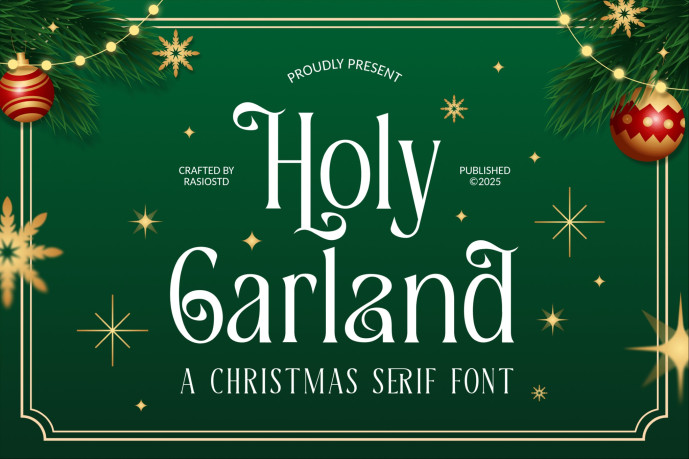
Holy Garland Christmas Serif Font
Holy Garland is a Christmas serif font full of festive character and ornamental charm. Featuring decorative ligatures, unique alternates, and dingbat-style elements, this font is perfect for spreading holiday cheer through design. It supports multilingual characters and includes symbols for diverse creative needs. Ideal for holiday cards, Christmas packaging, festive branding, or seasonal signage, Holy Garland combines elegant serif structure with playful flourishes to deliver a memorable visual experience.
Relevance and Use Cases is perfect for holiday branding, christmas card, gift tags, seasonal logo, festive headline, winter event flyer, decorative signage, ornament packaging, holiday invitation, christmas party poster, greeting cards, themed social post, toy store logo, seasonal printables.